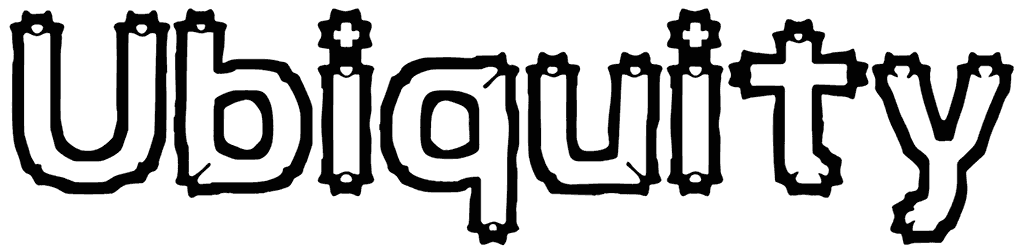
Ubiquity BRK Font
If you desire to show your next design with a modern and playful face, take a look at Ubiquity BRK. This outline font is made of untidy lines and you can apply it to a lot of projects such as posters, textiles, websites, and other kinds of stuff. This is a chance for Ubiquity BRK to make your texts admirable in a distinct vibe.